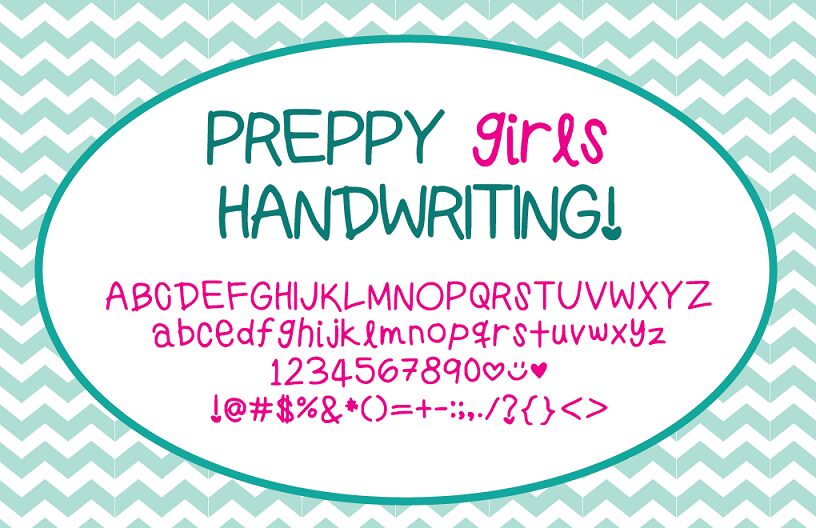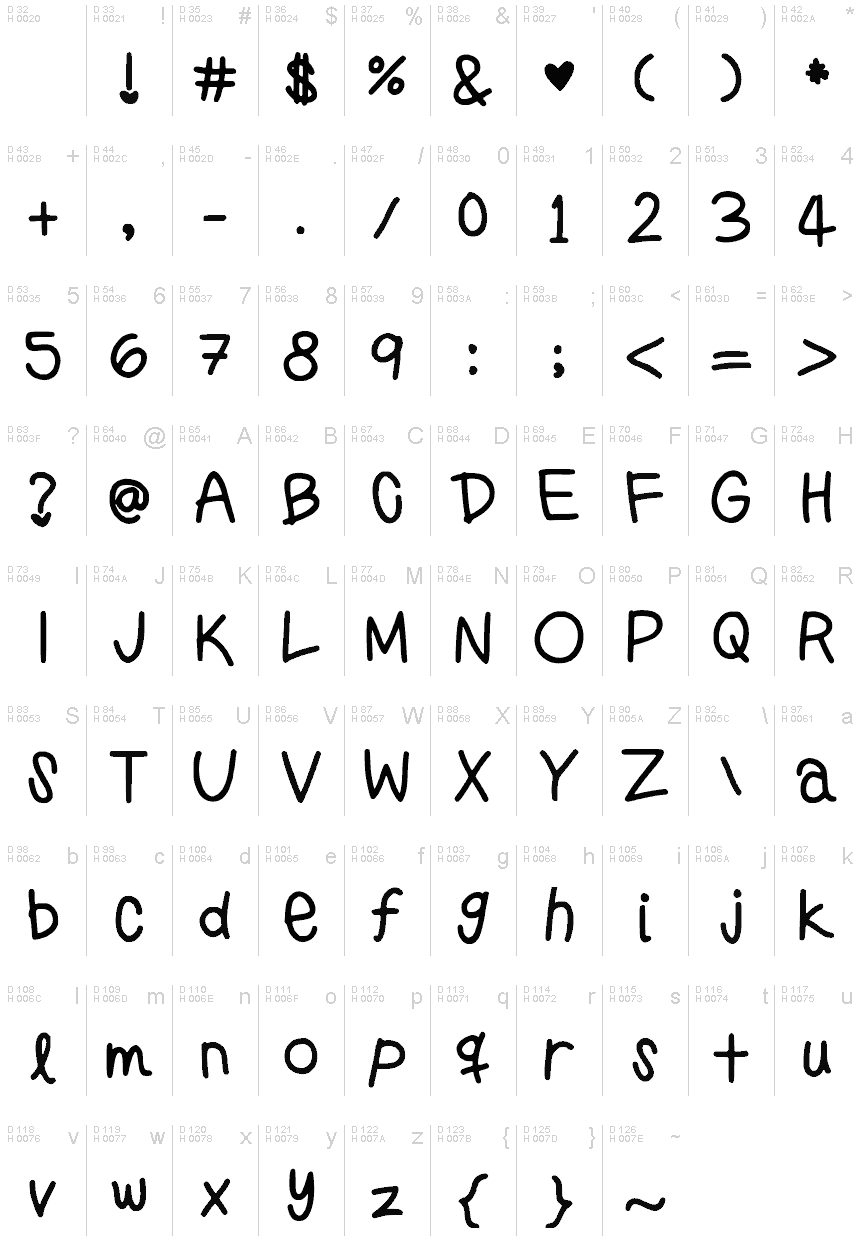
PreppyGirlsHandwriting
Preppy Girls Handwriting is a captivating font that exudes a playful and feminine charm. Crafted with a delicate touch, the script-like strokes convey a sense of effortless elegance, making it an ideal choice for a variety of design applications.
From greeting cards and stationery to social media graphics and wedding invitations, this font's whimsical aesthetic can elevate the visual appeal of any project. Its versatility lies in its ability to strike a balance between casual and refined, seamlessly transitioning between casual and formal contexts.
Preppy Girls Handwriting invites users to bring a touch of youthful sophistication to their creative endeavors.
From greeting cards and stationery to social media graphics and wedding invitations, this font's whimsical aesthetic can elevate the visual appeal of any project. Its versatility lies in its ability to strike a balance between casual and refined, seamlessly transitioning between casual and formal contexts.
Preppy Girls Handwriting invites users to bring a touch of youthful sophistication to their creative endeavors.